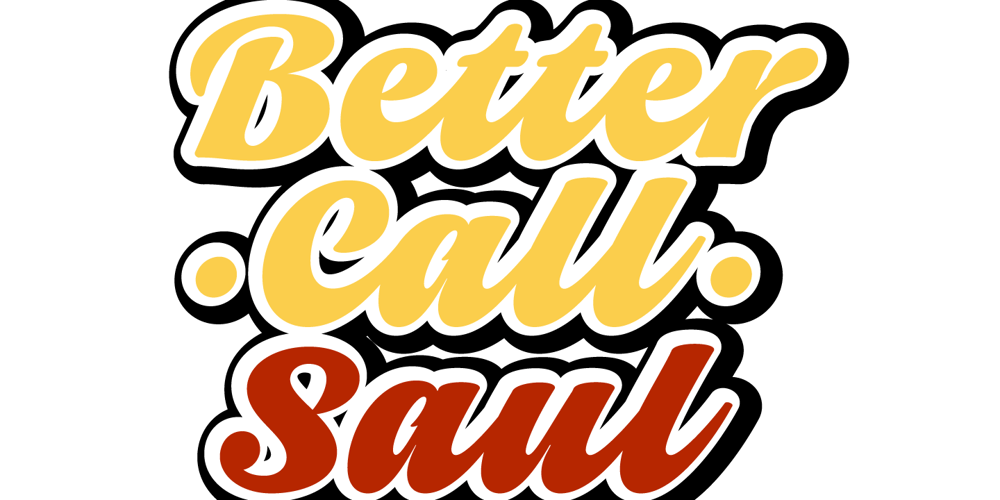
Vivian Script Font Family was designed by Andrés Ramírez and published by Vástago Studio. Vivian Script contains 1 styles and family package options. Vivian Script was designed from the study of typeface references like Doyald Young. It has optical adjustment in the details and funny contrasts to get an amazing result. It can used to be applied on different commercial topics like street wear, food and traveling for tourism. This is Vivian Script, the love of my life.